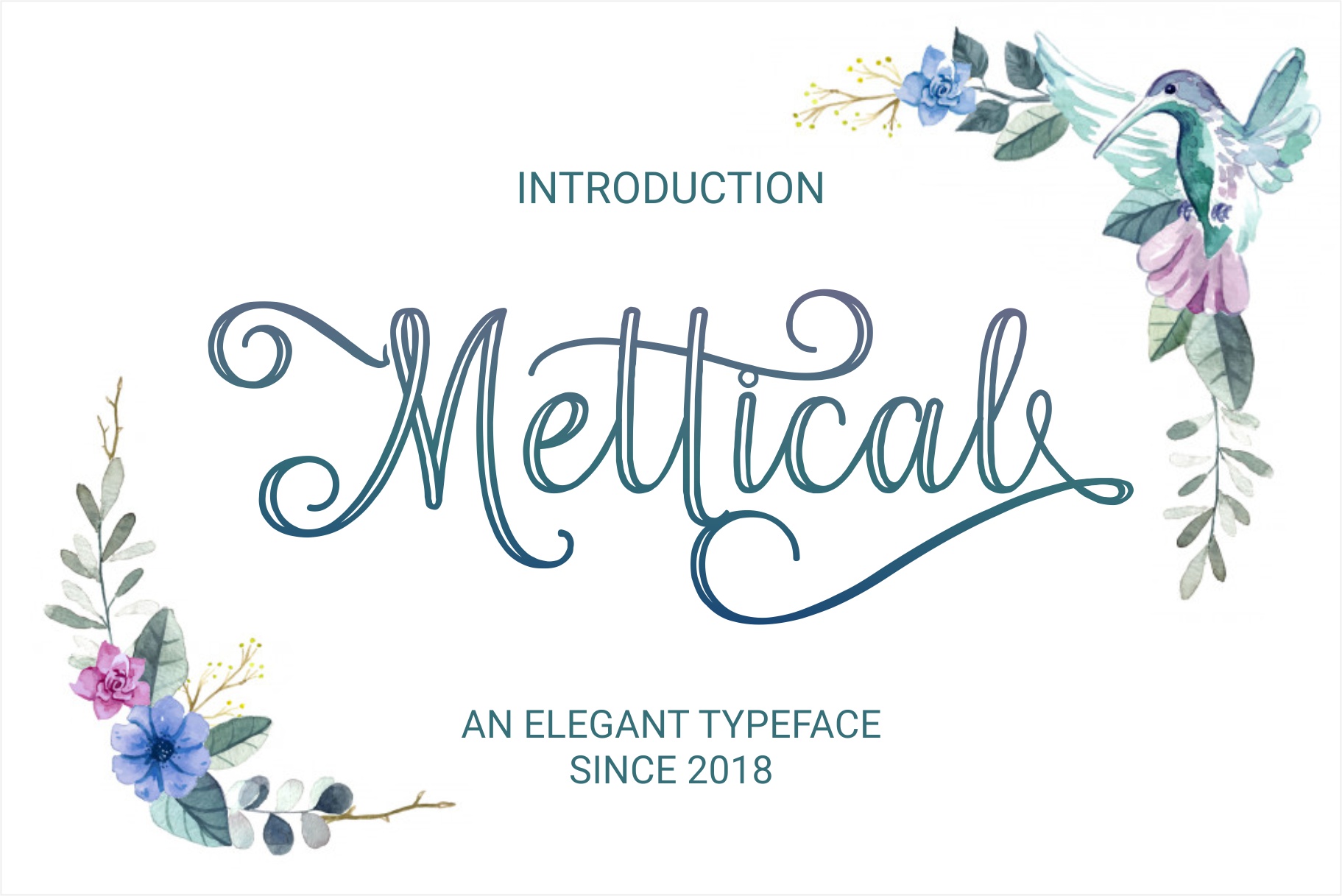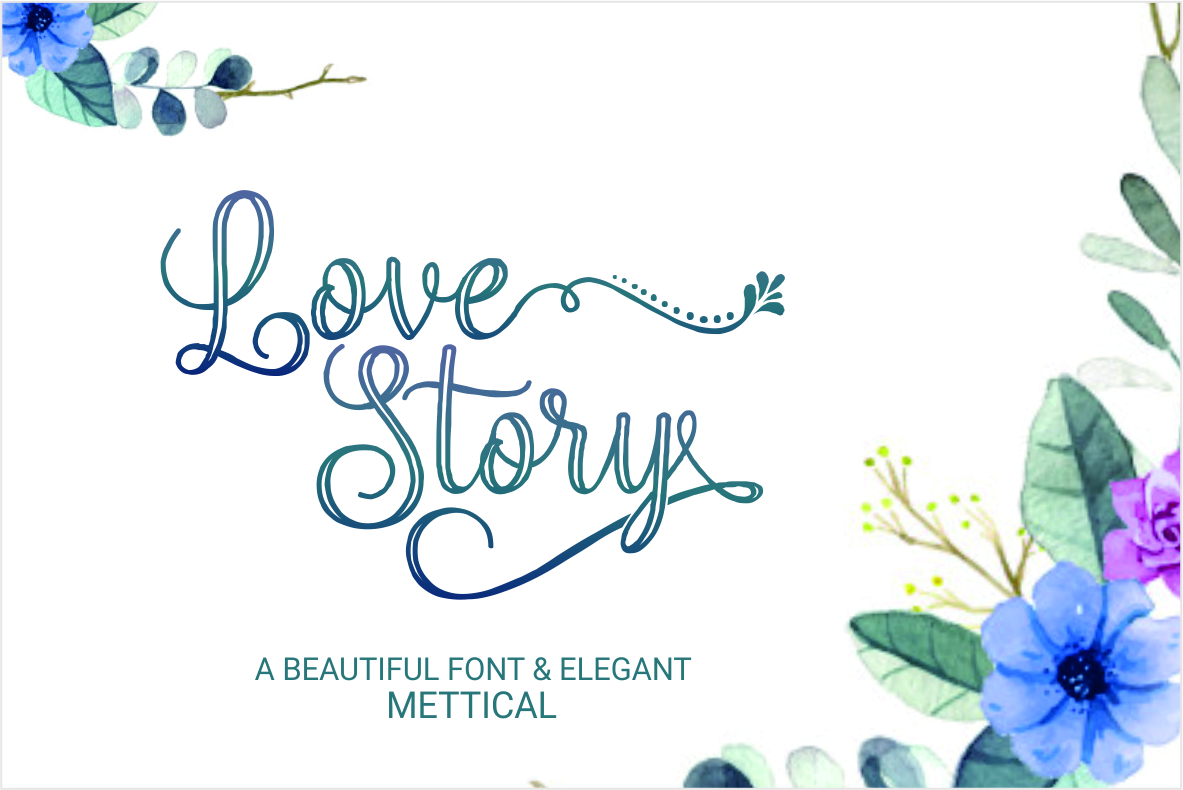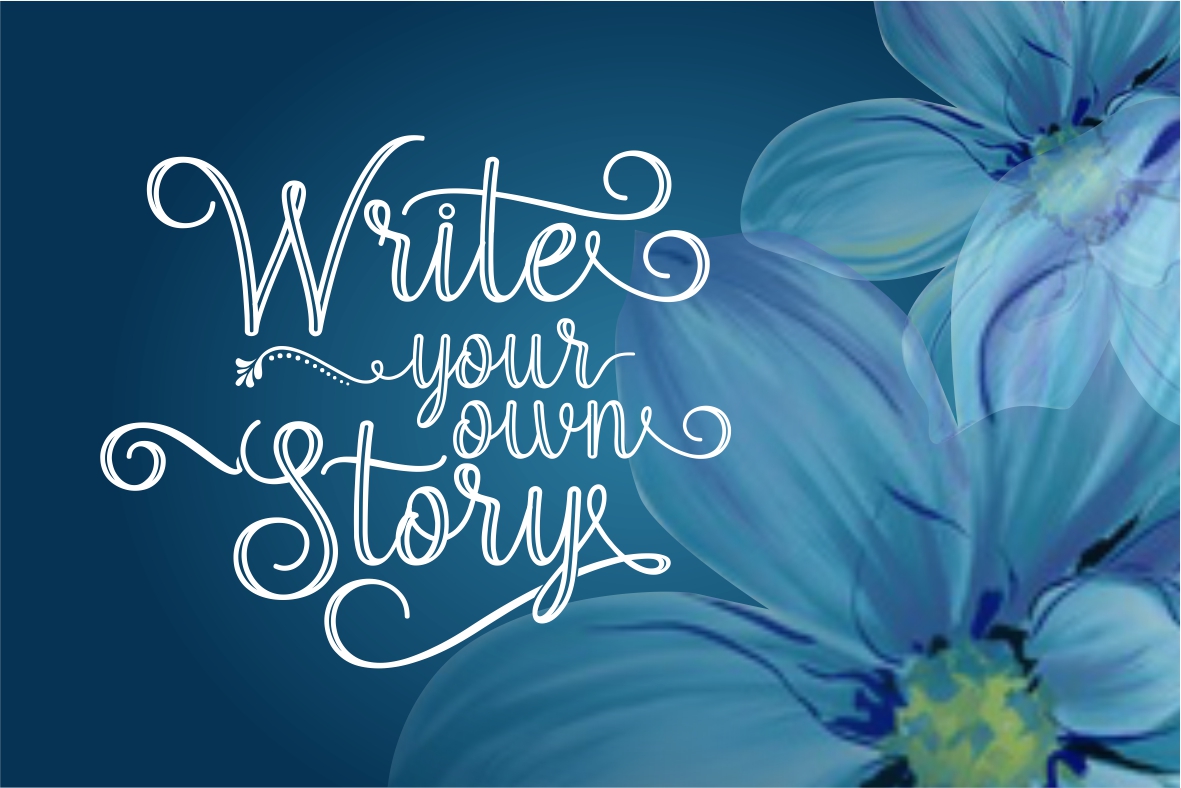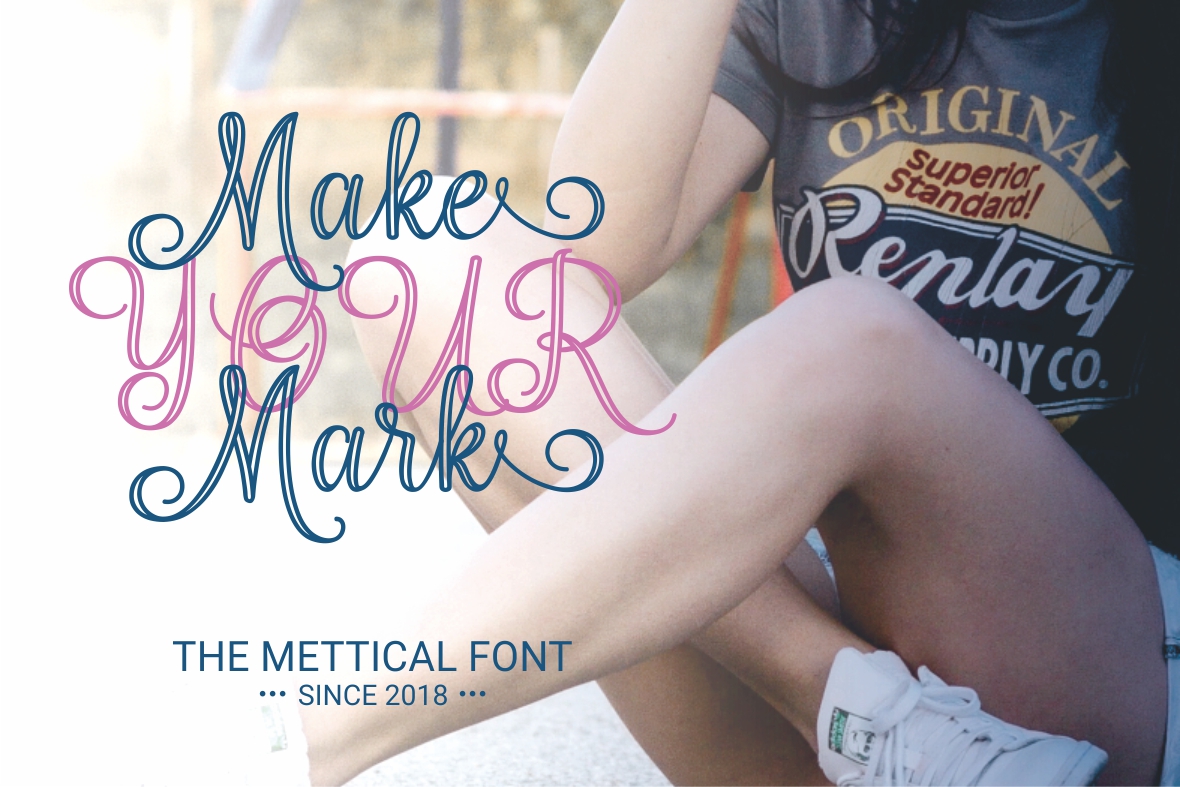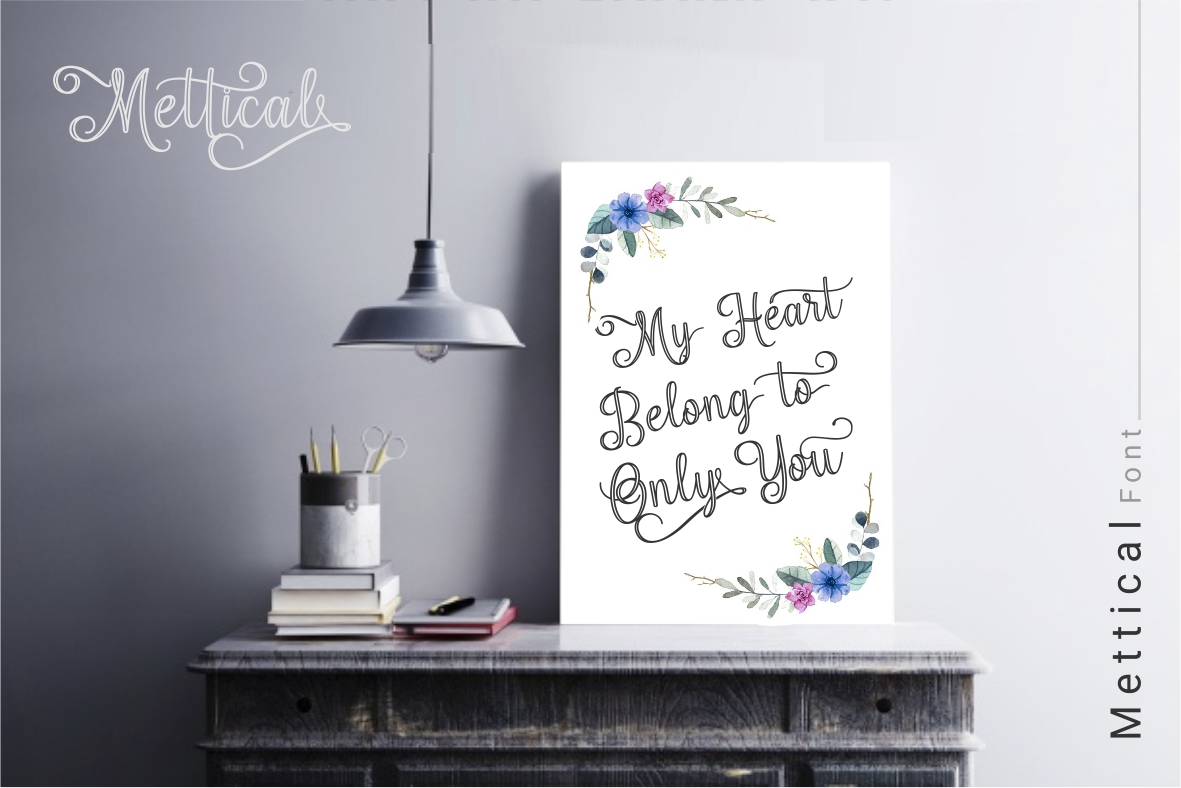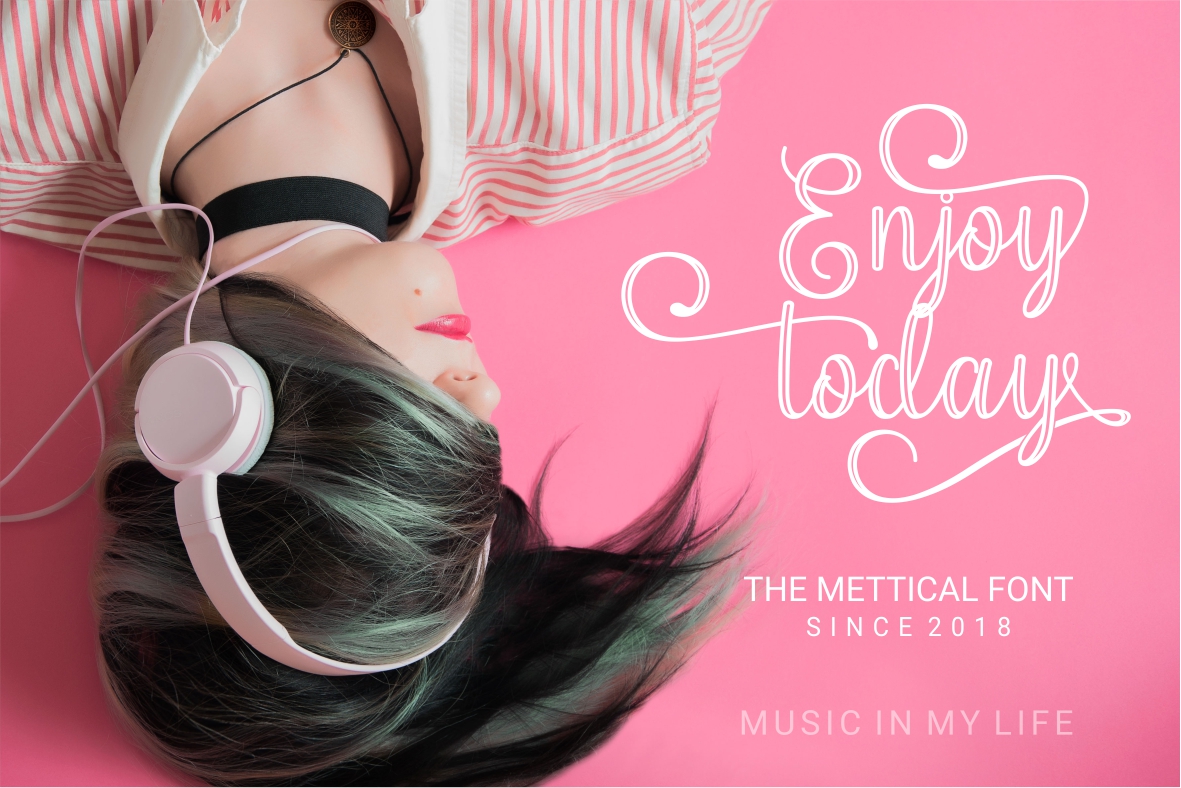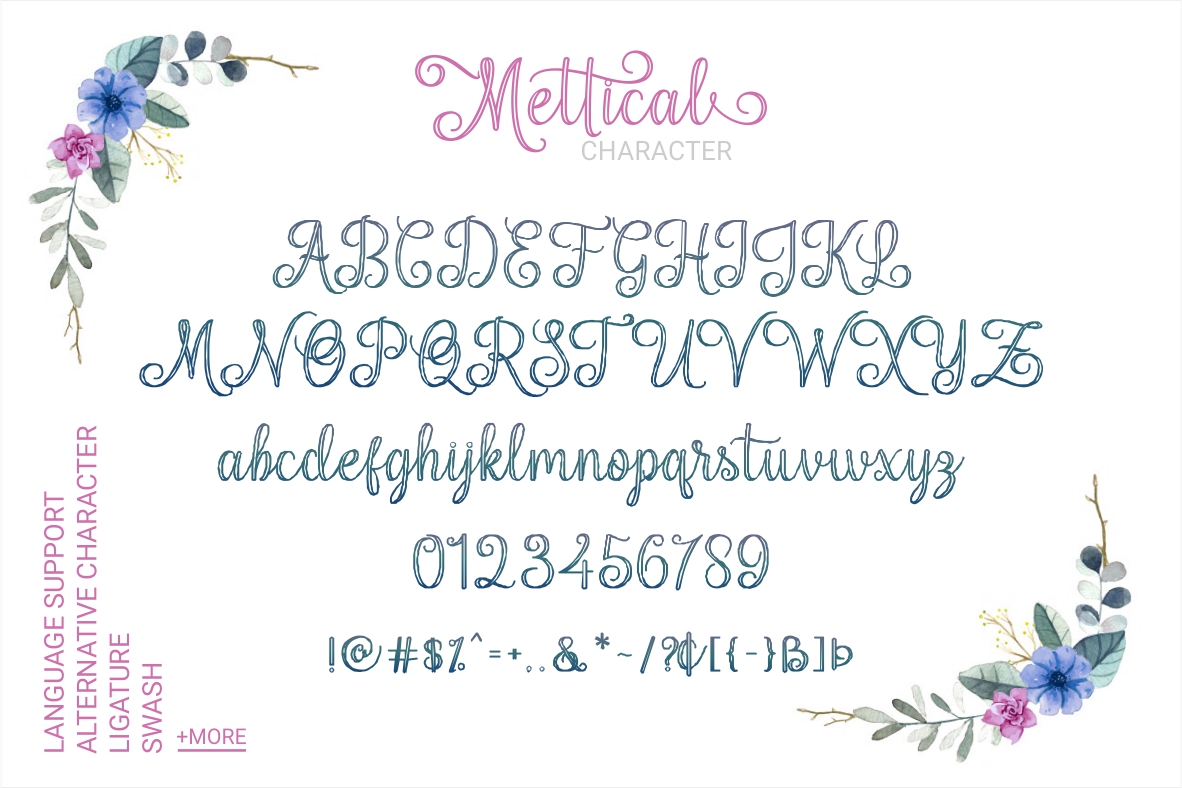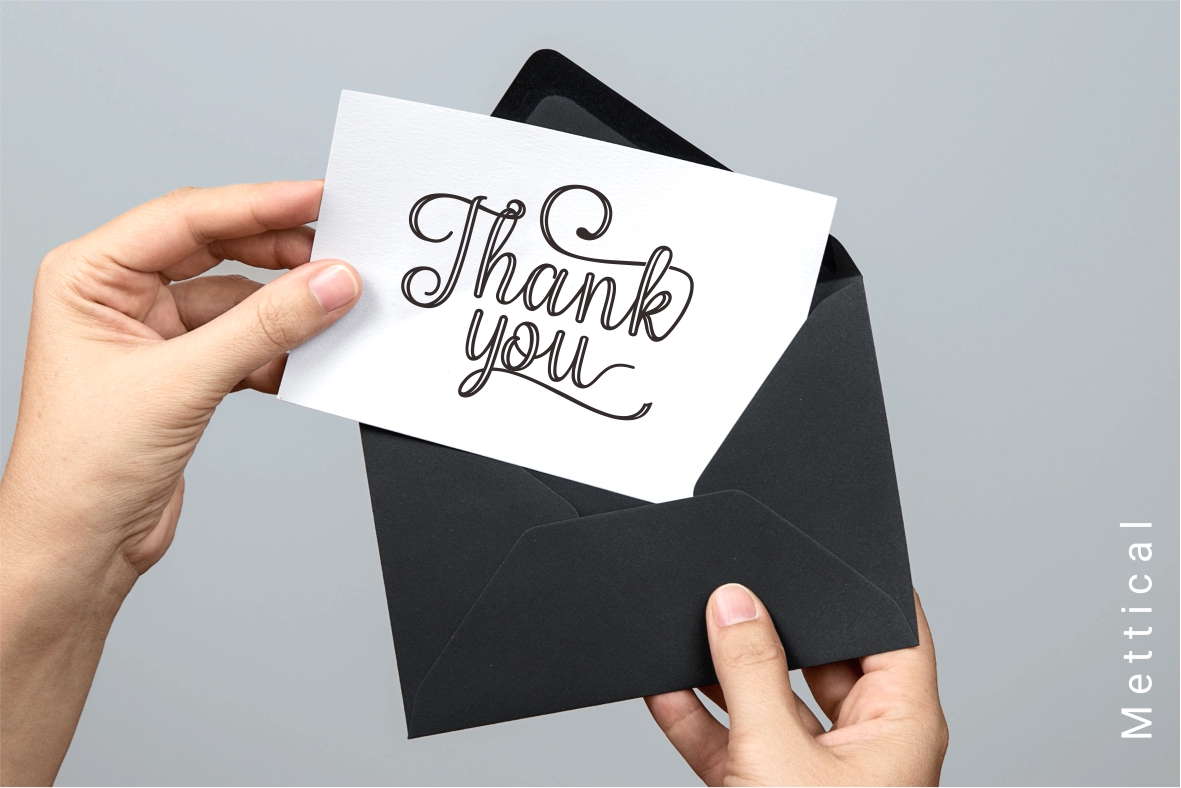
Mettical Font
About Mettical Font
Mettical is a beautiful handwriting with the usual calligraphic style, but in an outline design; this font is the best way to give you a sensible and romantic look. It features decorative characters and dancing baselines!